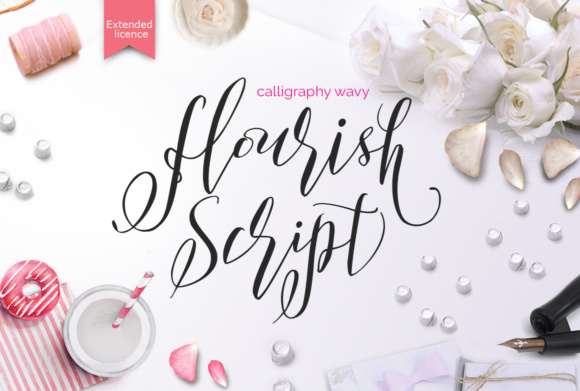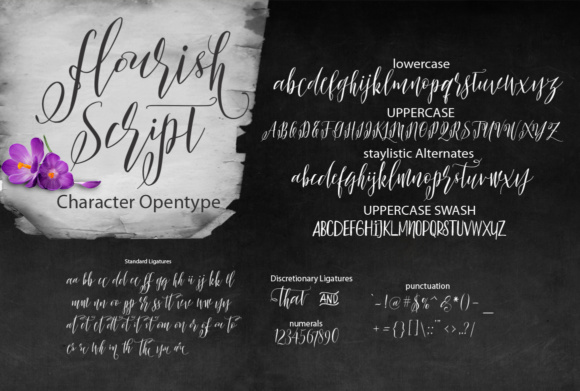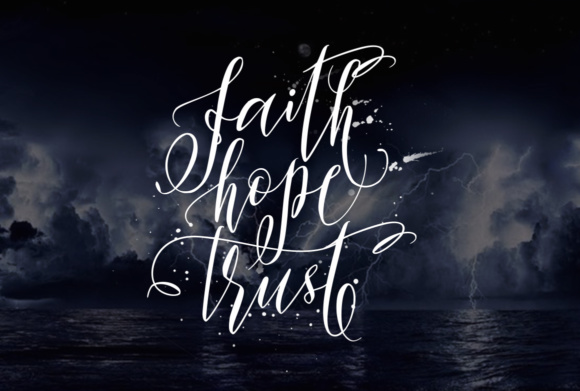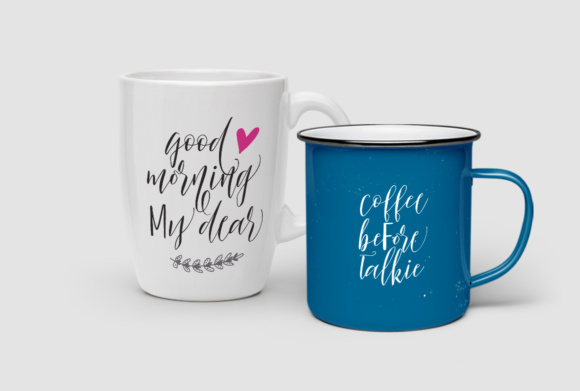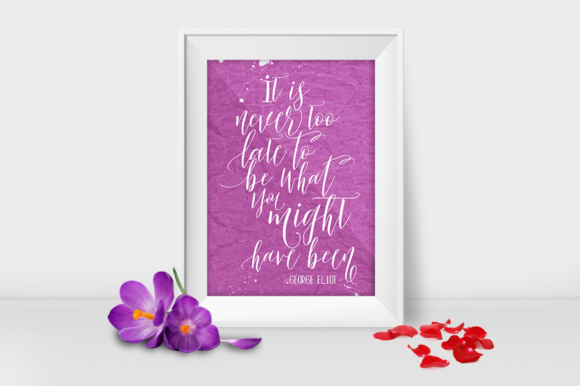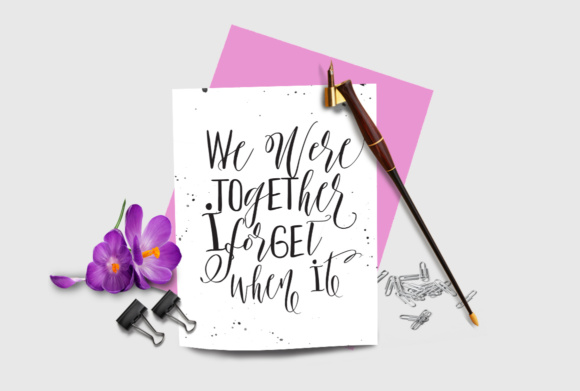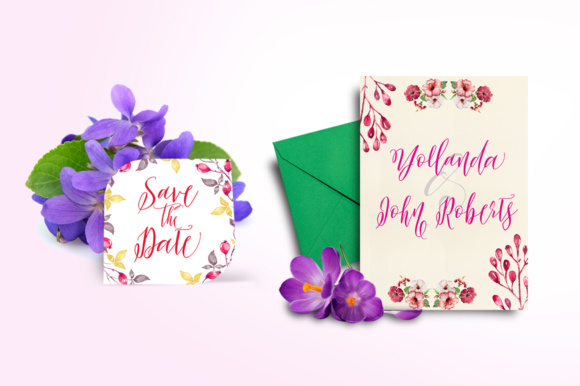
Flourish Font
About Flourish Font
Flourish makes customizing your type projects easier than ever! This calligraphy font is a stunning option for crafting projects, and adds a ton of charm and elegance to your designs.